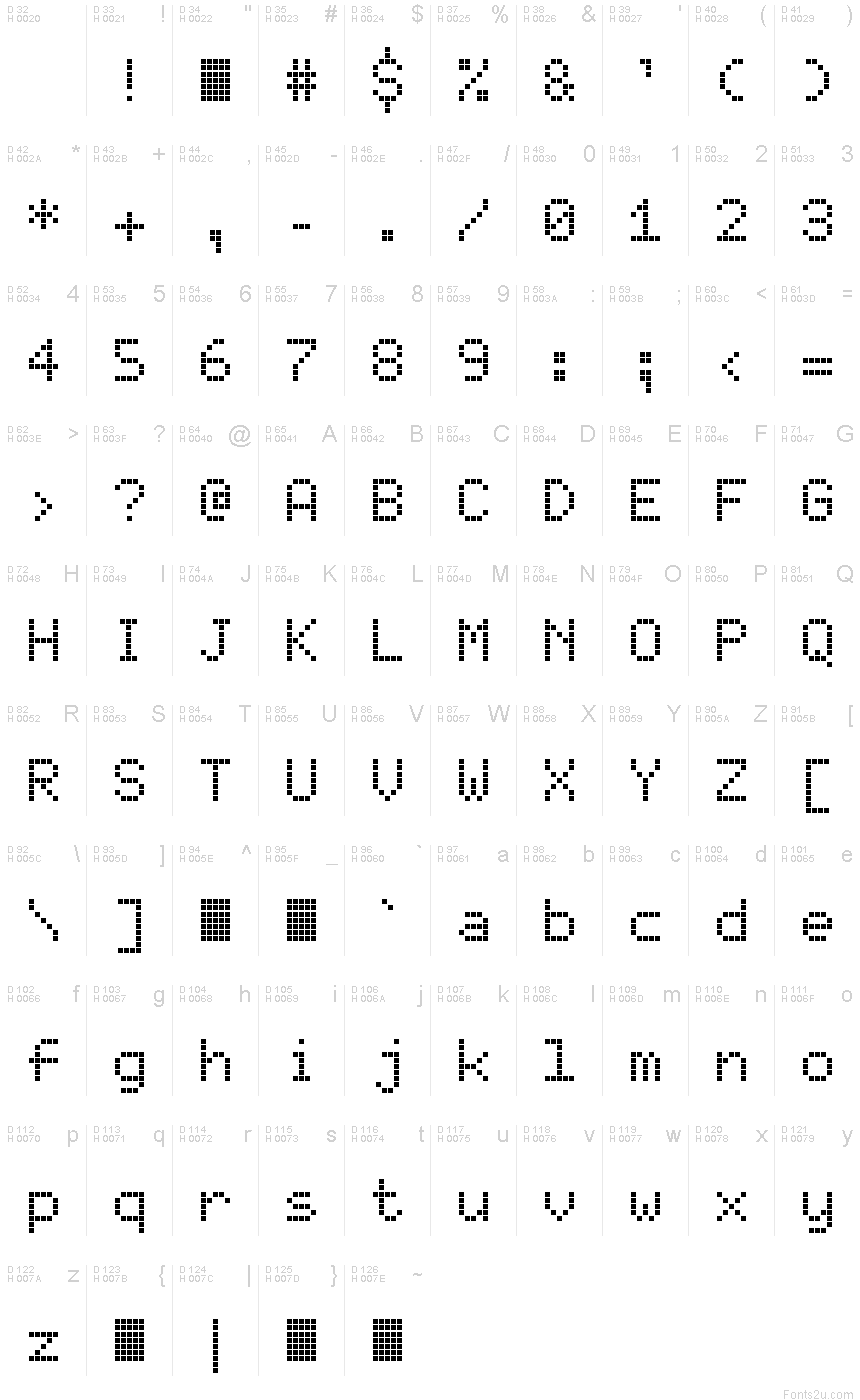
elektra
Elektra font by G Fonts is a free digital pixel typeface that looks like it was carved from a glowing grid of tiny squares. Every letter is built from rigid, uniform blocks, giving text a crisp, low-res texture that feels straight out of early consoles and LED scoreboards. The spacing is tight and rhythmic, so words lock together like tiles in an old-school game screen.
Using Elektra, your titles snap into focus on arcade posters, retro game UIs, sci-fi event flyers, DJ cover art, tech merch, and motion graphics overlays. This free font shines at large sizes where its chunky pixels can really show, and it pairs cleanly with a simple geometric sans for supporting text.